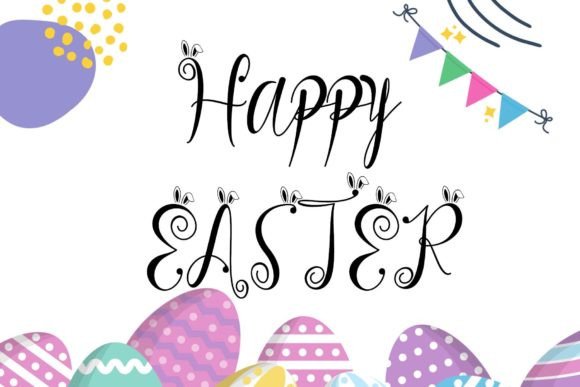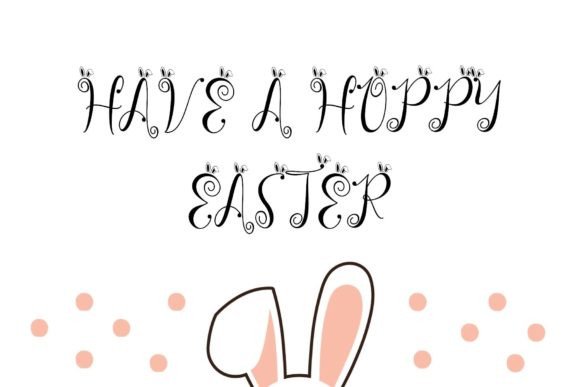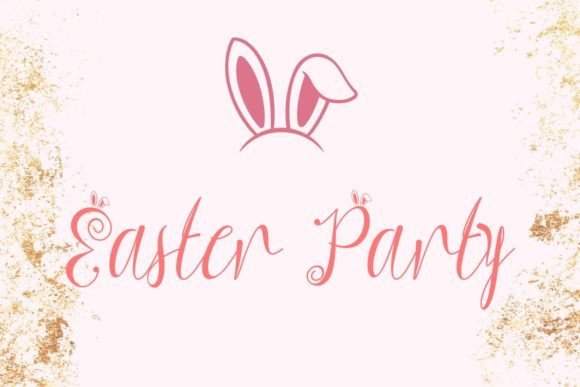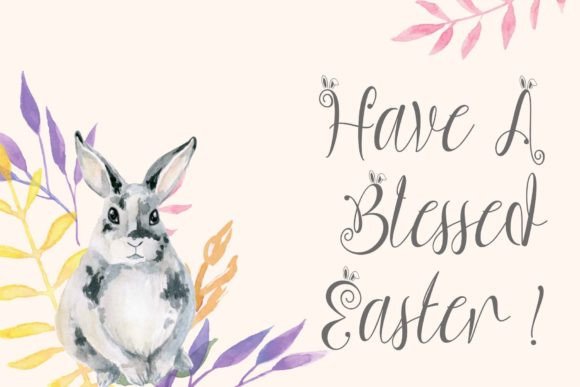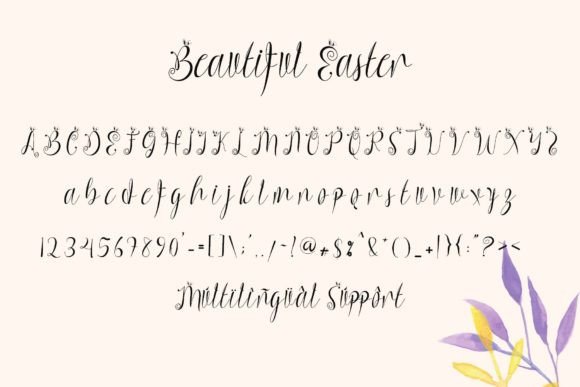
Spring into Design with the Beautiful Easter Font
As a designer, there’s something magical about creating content that sparks joy and happiness. Perhaps it’s a spring-themed project, a wedding invitation, or a playful Easter greeting card. Whatever the project, the right font can make all the difference. For designers looking to add a touch of whimsy and charm to their designs, the Beautiful Easter Font is a delightful discovery.
Handwritten with love, this quirky font is adorned with bunny ears in uppercase, making it perfect for Easter, spring, and wedding moments. Its playful charm is not just limited to these occasions; it’s a versatile font that can add a personal touch to any design. Whether you’re a seasoned designer or just starting out, the Beautiful Easter Font is a valuable addition to your toolkit, offering endless creative possibilities and a dash of festive fun.
Key Features of Beautiful Easter Font
- Unique Characteristics: Hand-drawn, whimsical design with intricate details and flourishes, perfect for Easter and spring-themed designs
Beautiful Easter Font Review
Overall, I found the Beautiful Easter Font to be a visually appealing addition to any Easter-themed project. ✨ Its cursive, handwritten style perfectly captures the spirit of the holiday. ✨ The font’s gentle curves and flowing lines make it ideal for use in invitations, greeting cards, and other materials where a warm, inviting feel is desired.
One of the things that really stands out about this font is its versatility. ✨ It comes in a range of sizes, from small to large, making it easy to use in a variety of applications. Additionally, the font is highly customizable, allowing users to adjust the color, spacing, and other elements to suit their needs.
- ⚠️ The font may not be suitable for use in formal or professional contexts, as its cursive style may be perceived as too casual.
- ⚠️ Some users may find the font’s curves and lines to be a bit too elaborate, making it difficult to read in certain situations.
- ⚠️ The font is not compatible with all operating systems or devices, which may limit its use in certain environments.
Overall, I would recommend the Beautiful Easter Font to anyone looking to add a touch of warmth and personality to their Easter-themed projects. While it may have some limitations, its versatility and visual appeal make it a great choice for a wide range of applications.
The Beautiful Easter Font is ideal for creating Easter-themed designs, such as:
- Easter cards and invitations
- Decorative posters and banners
- Social media graphics and advertisements
- Easter-themed printables and templates